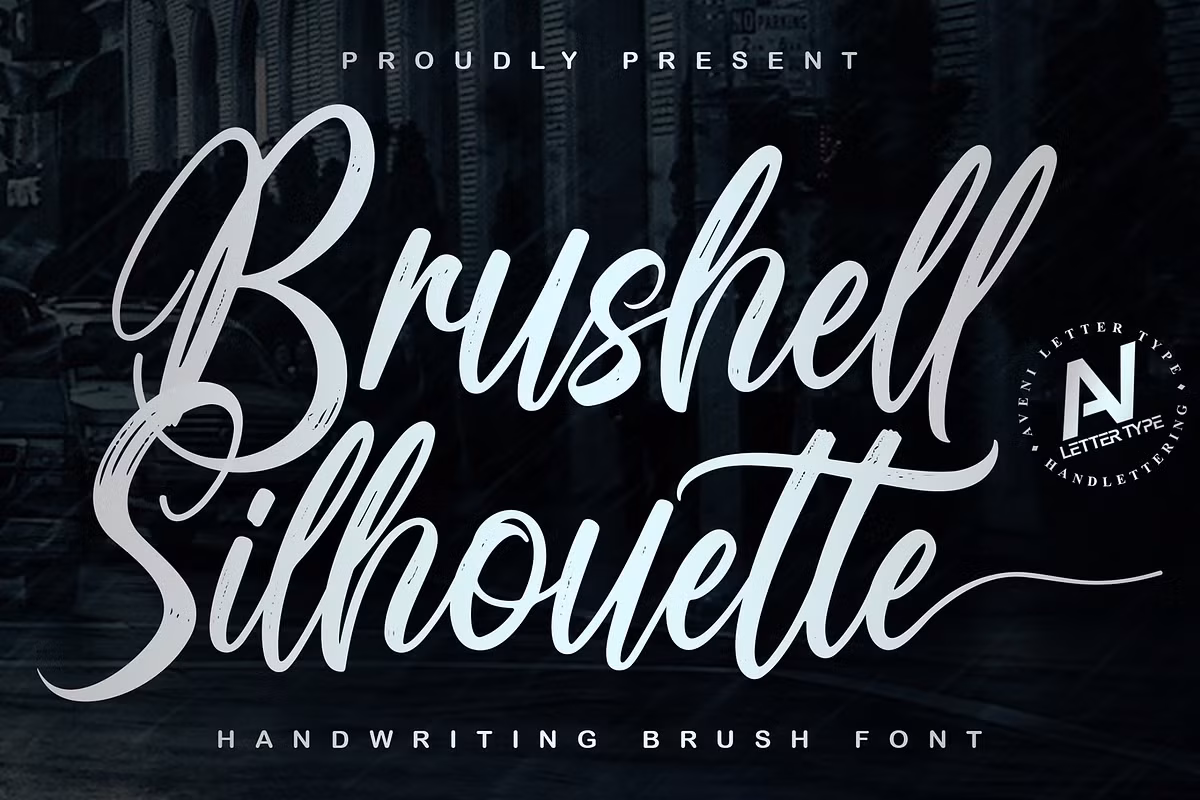
Brushell Silhouette | Handwriting Font Free Download is a beautifully crafted script typeface that captures the natural flow and charm of real handwriting. With its graceful strokes and slightly textured edges, this font adds a personal, artistic touch to any design. It’s perfect for branding, greeting cards, social media content, wedding invites, and DIY-inspired projects.
The font blends casual elegance with creative flair, making it versatile for both professional and playful applications. Whether you're aiming for a heartfelt message or a stylish identity, Brushell Silhouette delivers warmth and authenticity in every letter.